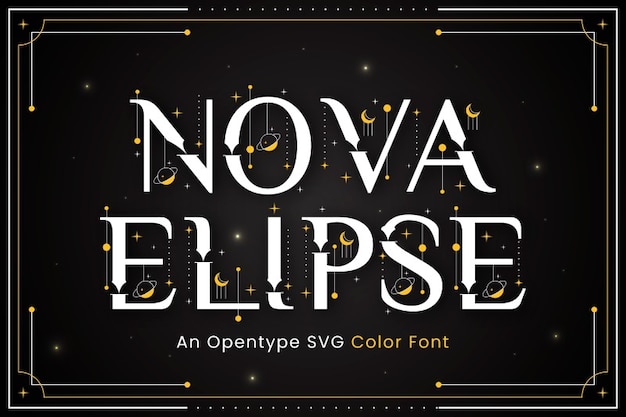
Nova Elipse is a celestial font that blends classic elegance with a mystical touch. Inspired by the wonders of space, its refined curves and subtle details evoke the beauty of orbital paths and starry skies. Perfect for projects seeking a timeless yet otherworldly feel, Nova Elipse brings a harmonious balance of sophistication and cosmic allure to your designs.